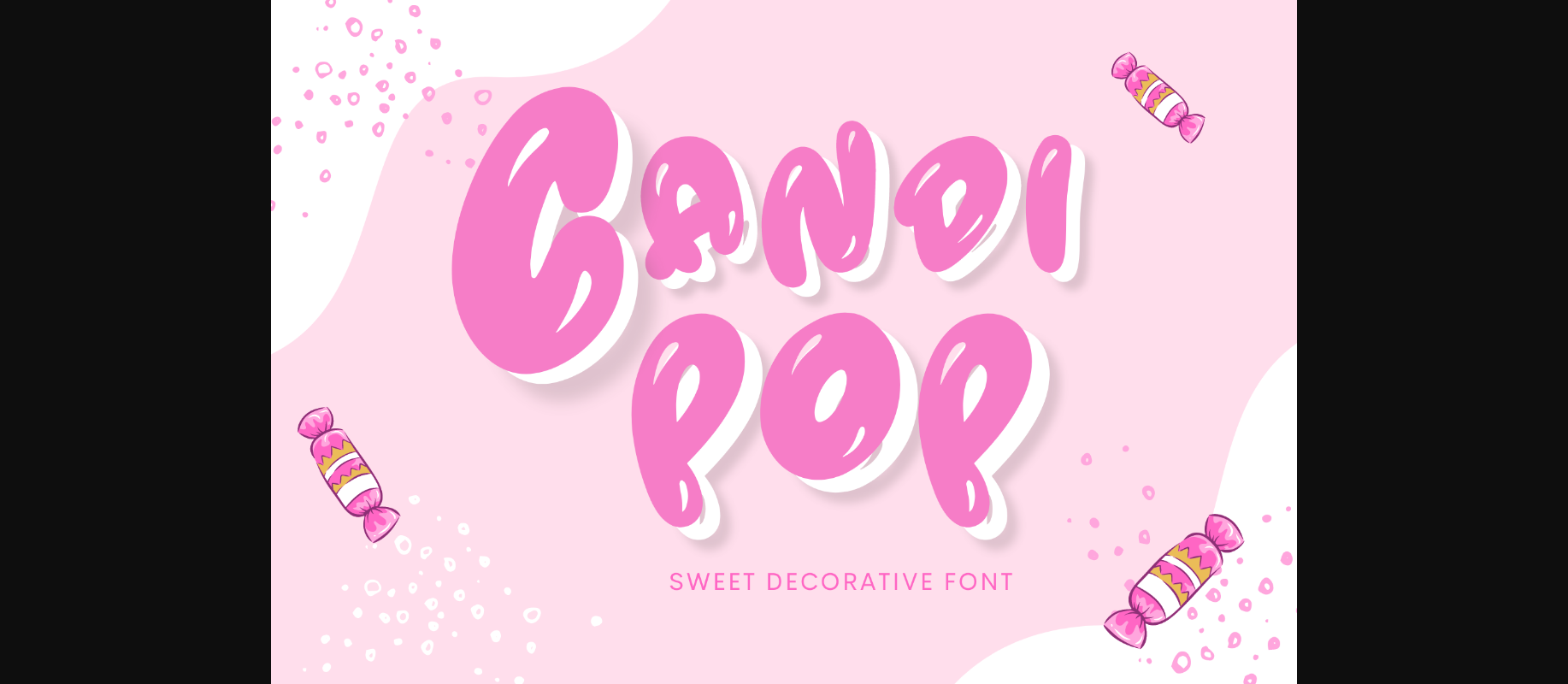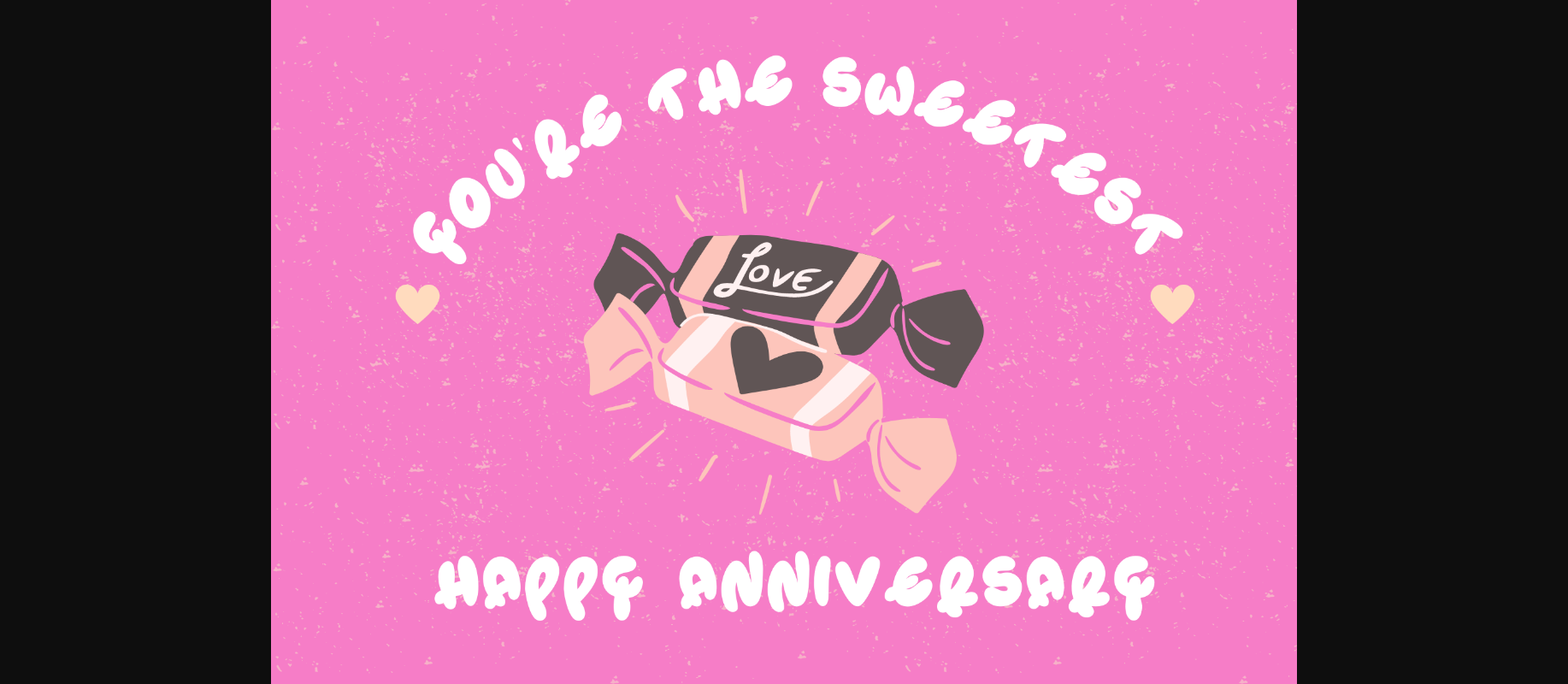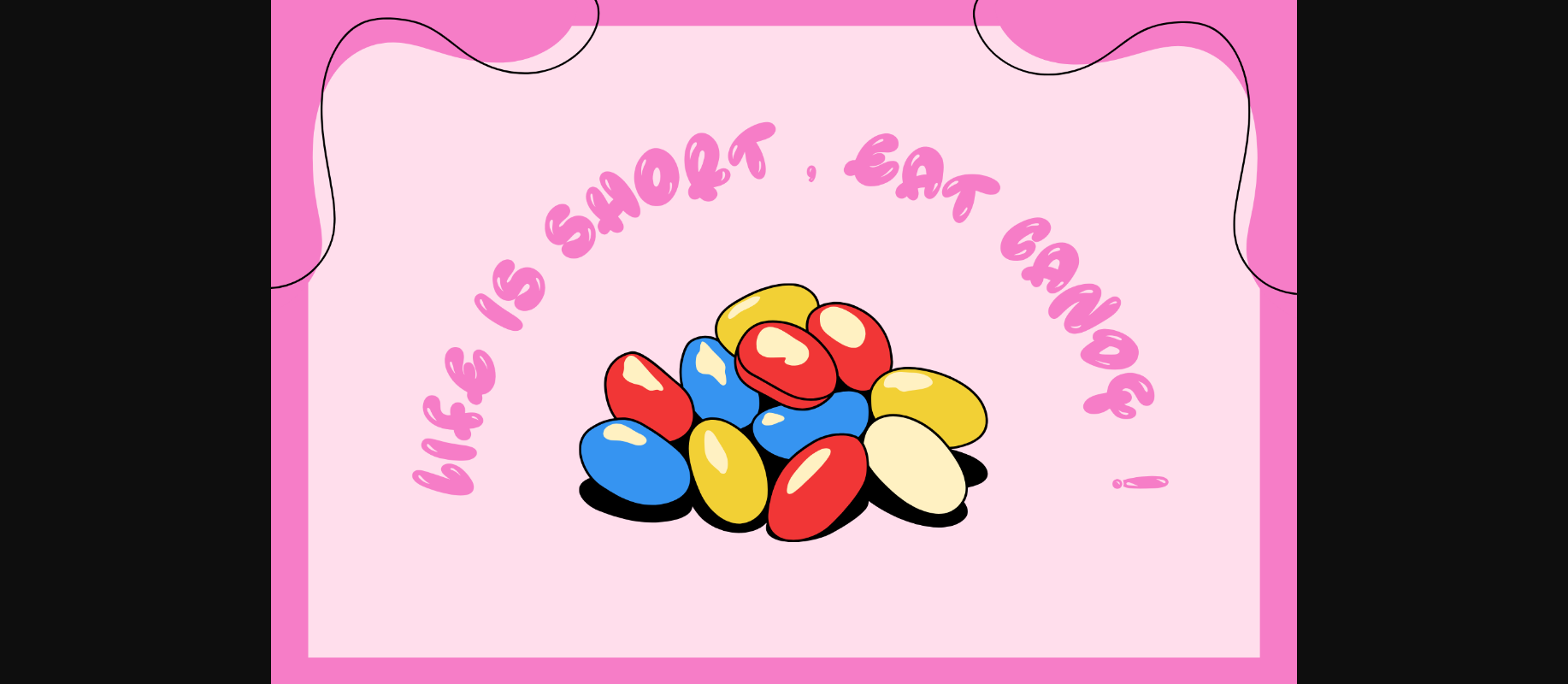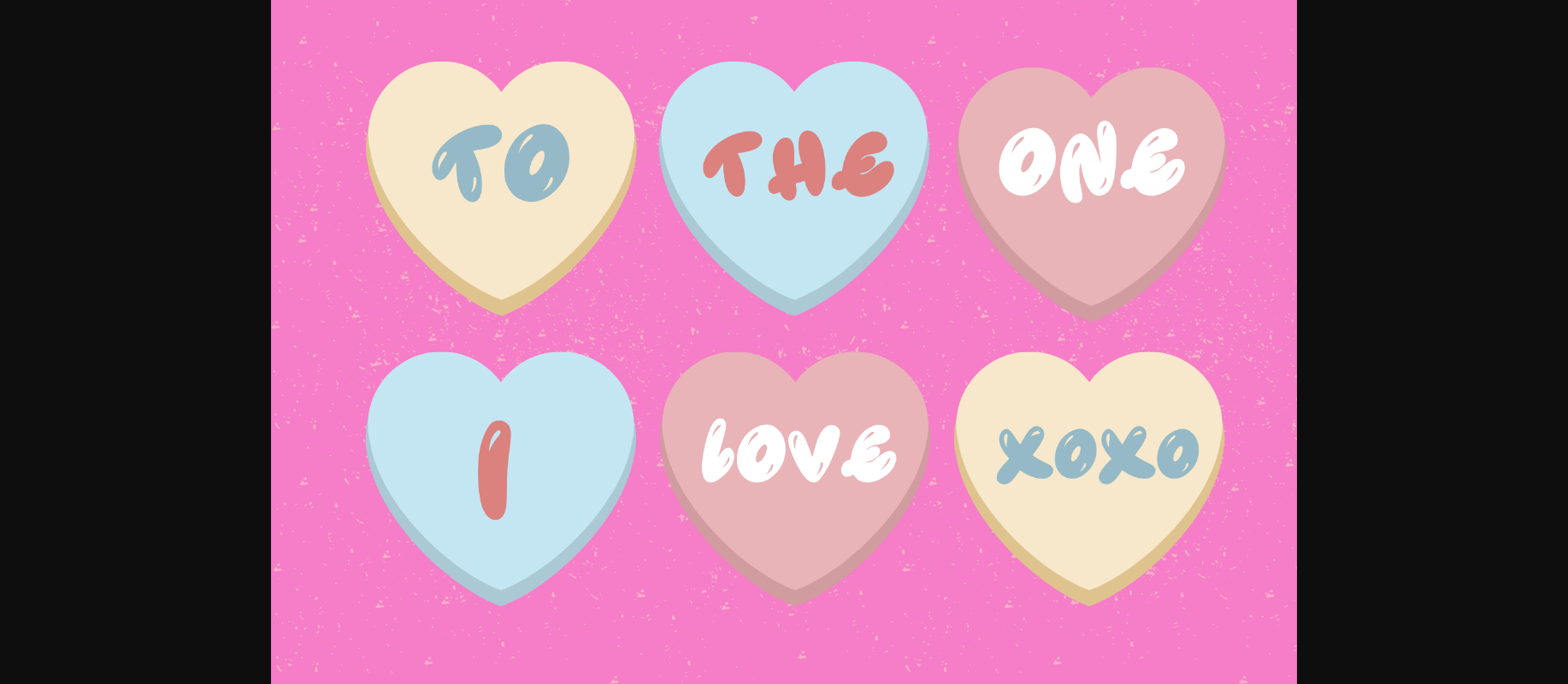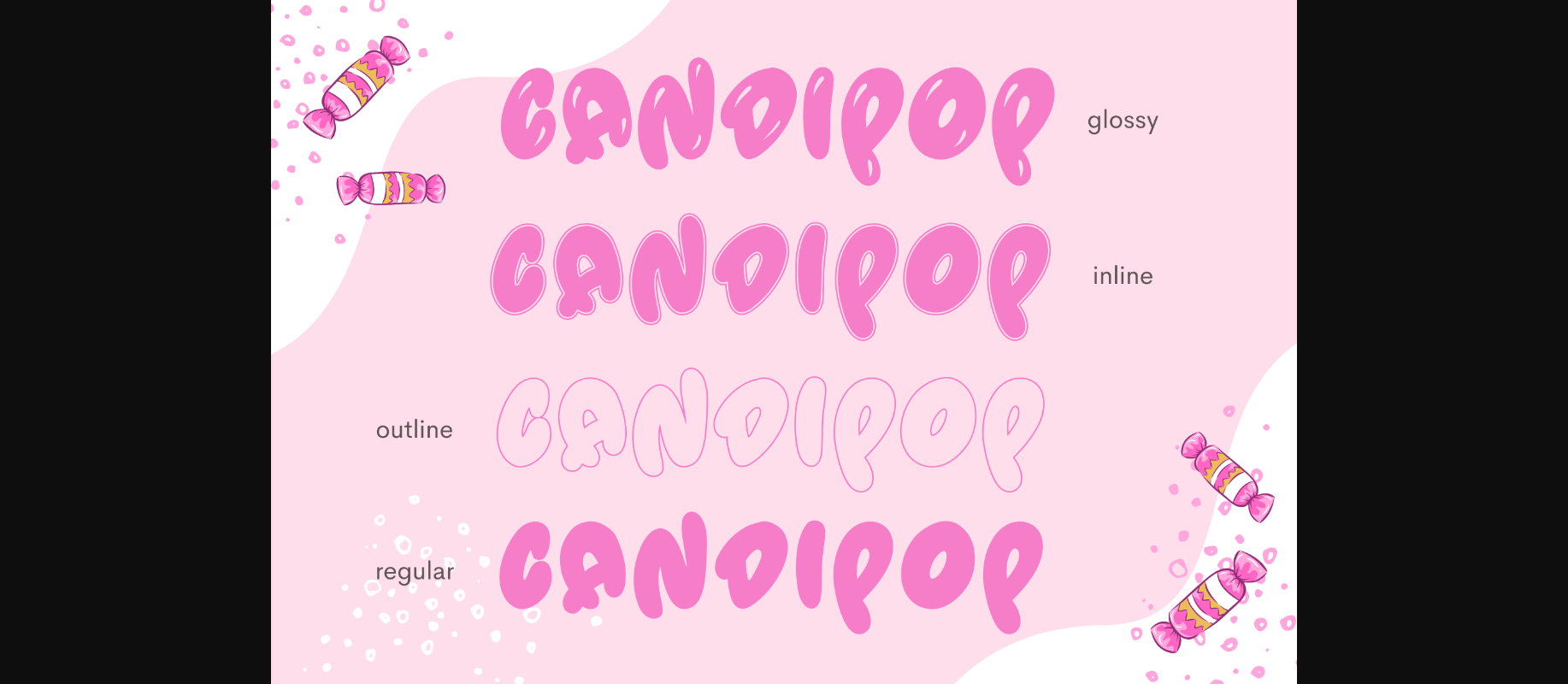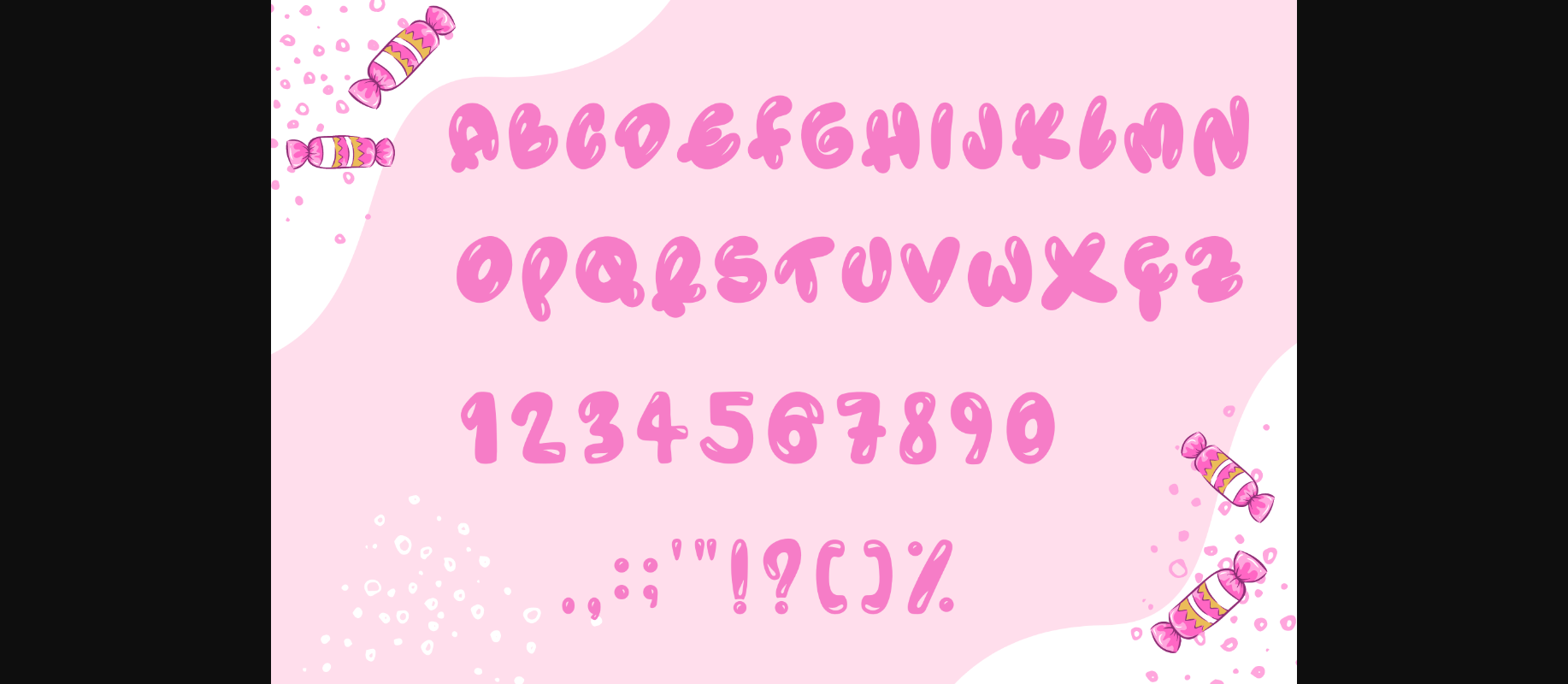
About Candipop Font
Candipop font is a decorative font that is not only cute and eyes catching but also incredibly versatile. Whether you’re working on product branding or content using, creating a display headline, or designing packaging for your latest project, Candipop font will surely bring an impressive smile to your piece of work effortlessly!